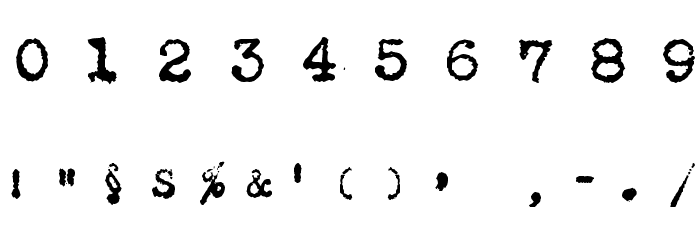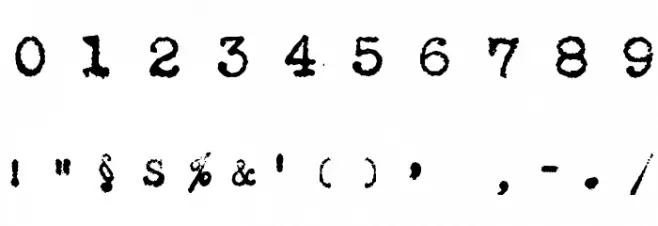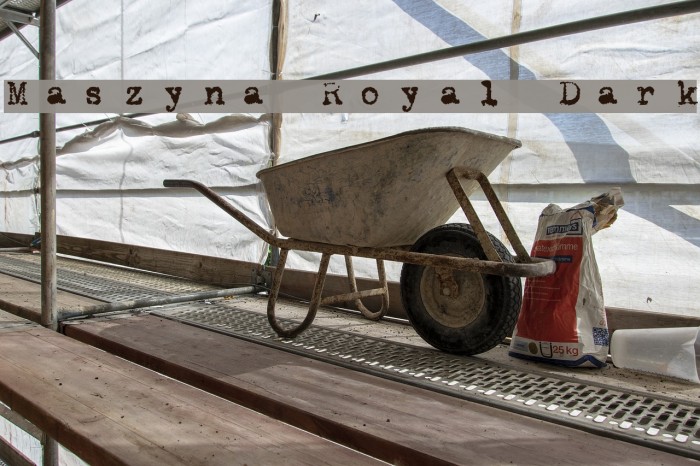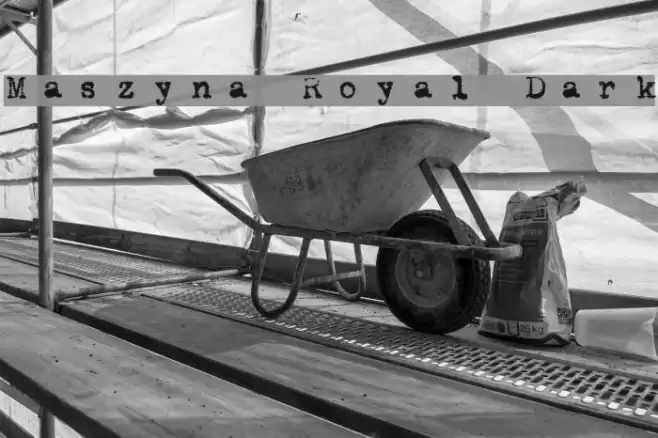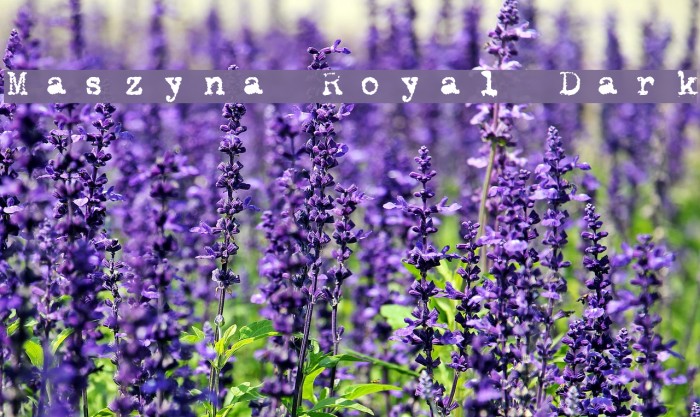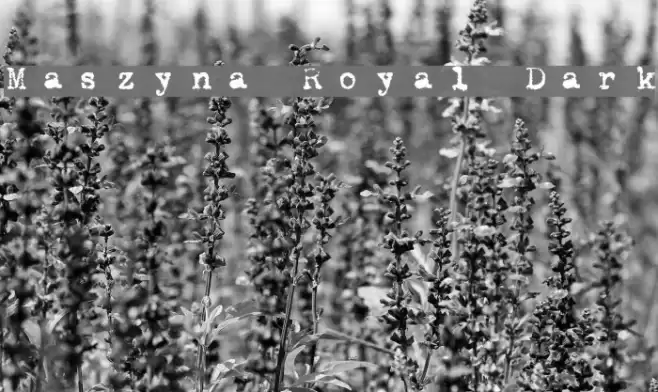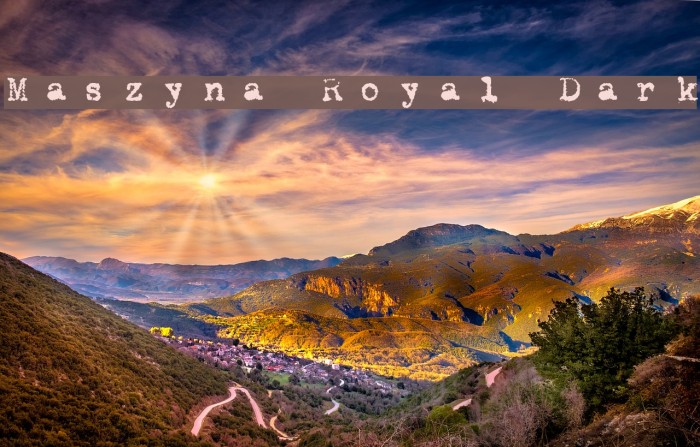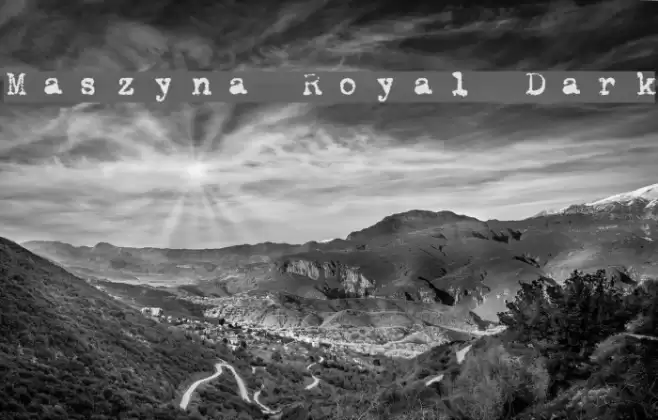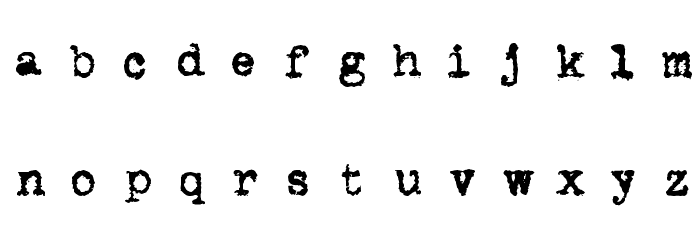
Maszyna Royal Dark Font
Maszyna Royal Dark Description
This font features a vintage, typewriter-inspired design with a distressed, textured appearance. Each character appears as if it has been stamped or printed with slight imperfections, giving it an authentic, aged look. The uppercase and lowercase letters maintain a consistent style, with rounded edges and varying stroke thicknesses that add to the worn aesthetic. Numbers and special characters follow the same design principles, ensuring a cohesive look across all glyphs. The font's unique style is reminiscent of old typewriter fonts, making it ideal for projects that require a retro or nostalgic feel.
| Overall Style | Vintage |
| Proposed Projects | Ideal for vintage-themed designs, retro posters, book covers, and branding that requires a nostalgic touch. |